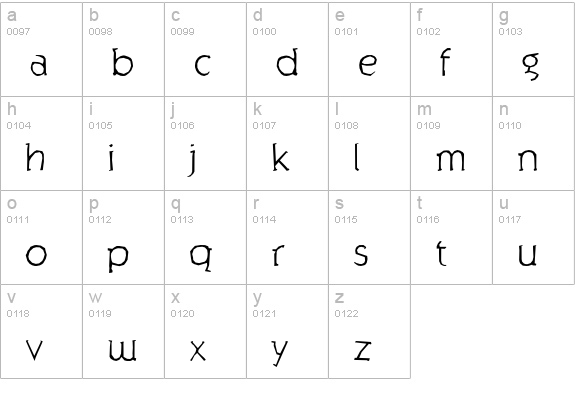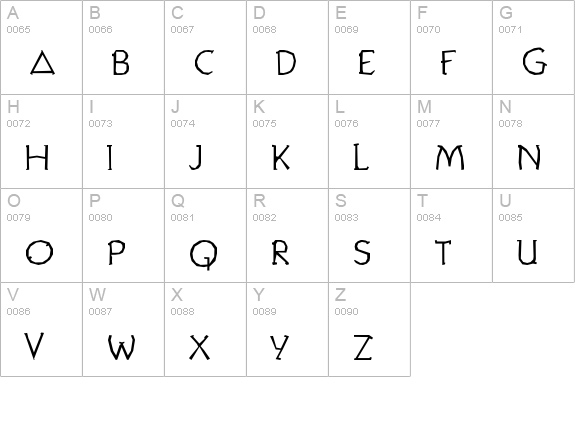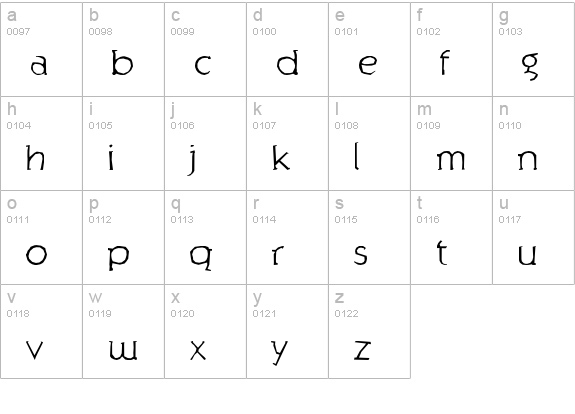
Twig Light is a refined, elegant variant in the Twig typeface family \xE2\x80\x94 well suited to elegant body text, refined sub-headings, and luxury branding.
Introducing Twig Light, a delicate and elegant font that exudes a sense of grace and sophistication. This font is the perfect choice for projects that require a touch of subtlety and refinement. Its slim and slender letterforms effortlessly flow across the page, creating a harmonious and balanced composition. With its gentle curves and graceful strokes, Twig Light adds a touch of femininity and grace to any design. Whether used for invitations, branding materials, or editorial layouts, this font is sure to captivate and leave a lasting impression. One of the best parts about Twig Light is that it is freely available to download at FontsMarket.com. This means that you can effortlessly add this stunning font to your collection without breaking the bank. With just a few clicks, you can access this beautiful typeface and start incorporating it into your designs. Not only is Twig Light visually appealing, but it also offers exceptional legibility. Each letter is meticulously crafted to ensure clarity and ease of reading, making it suitable for both print and digital mediums. Its versatility allows it to seamlessly adapt to a variety of design projects, ensuring that your message is effectively communicated to your audience. Whether you're a designer, a creative professional, or simply someone who appreciates beautiful typography, Twig Light is a must-have font in your arsenal. Its timeless elegance and effortless beauty will elevate your designs and make them stand out from the crowd. So why wait? Head over to FontsMarket.com and download Twig Light today. Embrace the freedom of this stunning font and let your creativity soar. Whether you're designing for personal or commercial use, Twig Light is sure to exceed your expectations and become an invaluable addition to your font library.